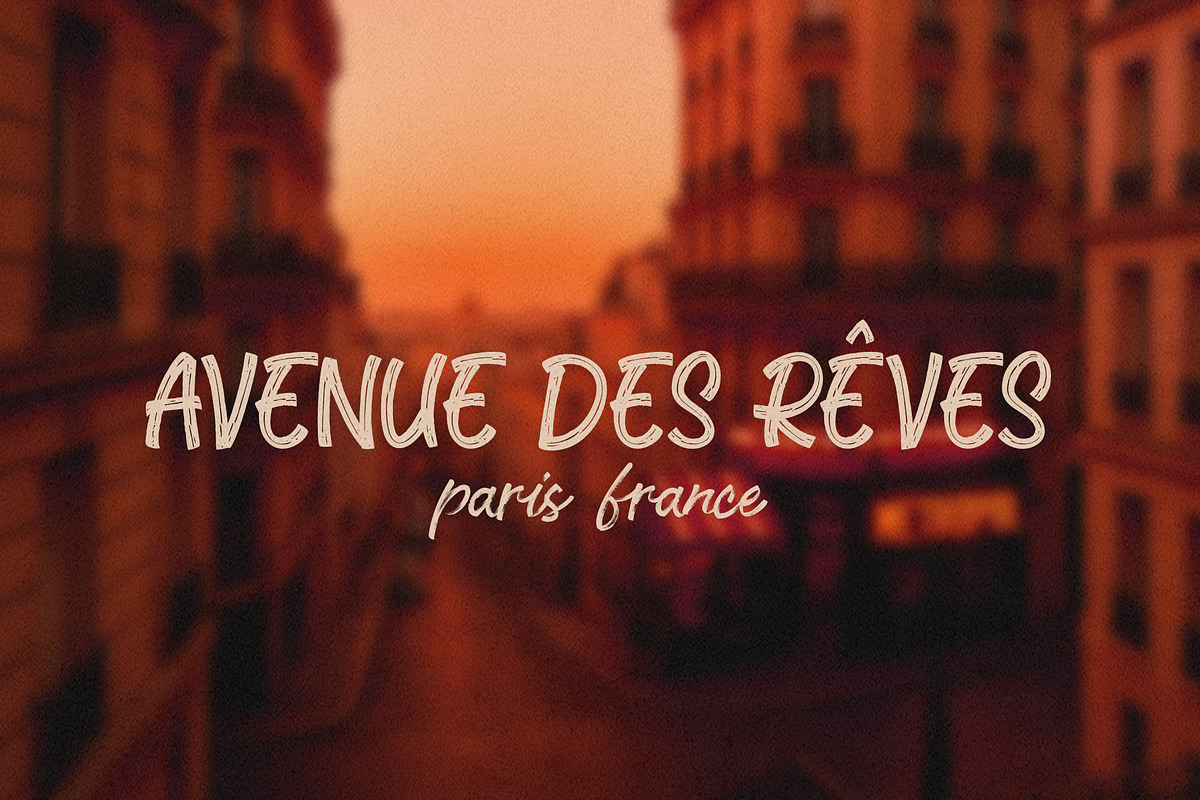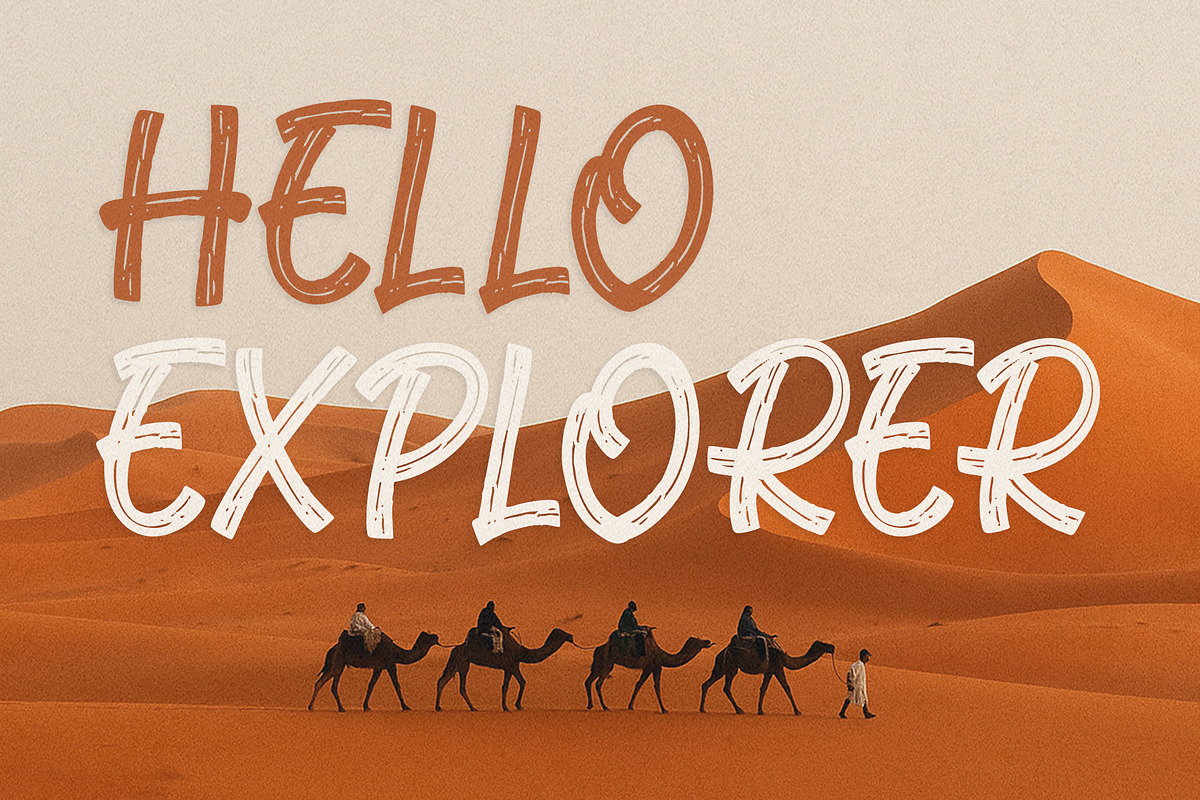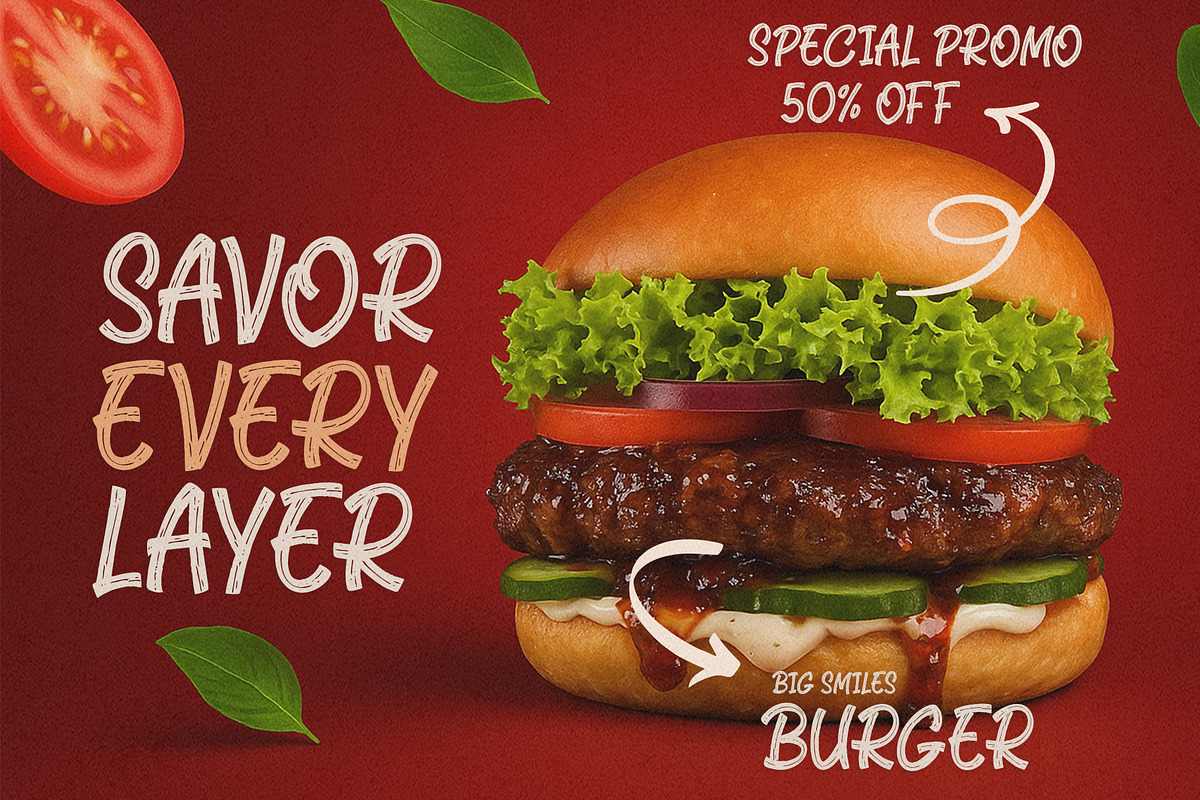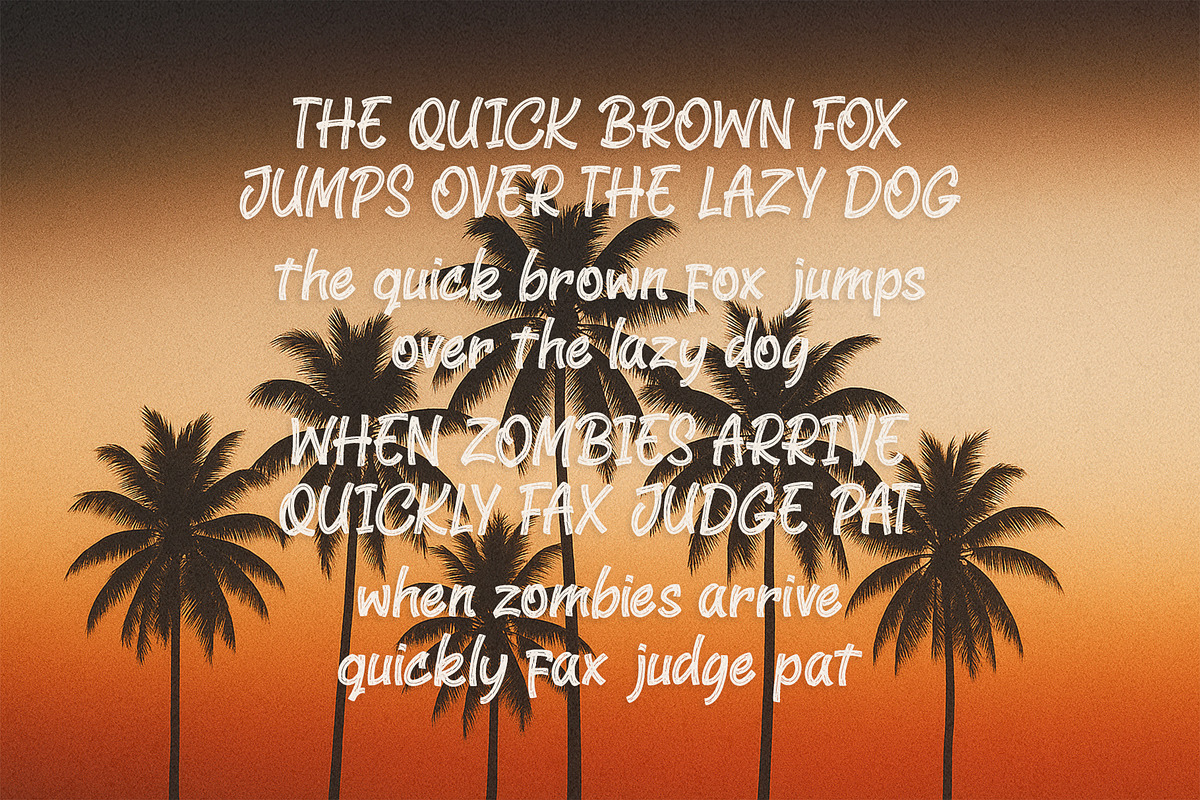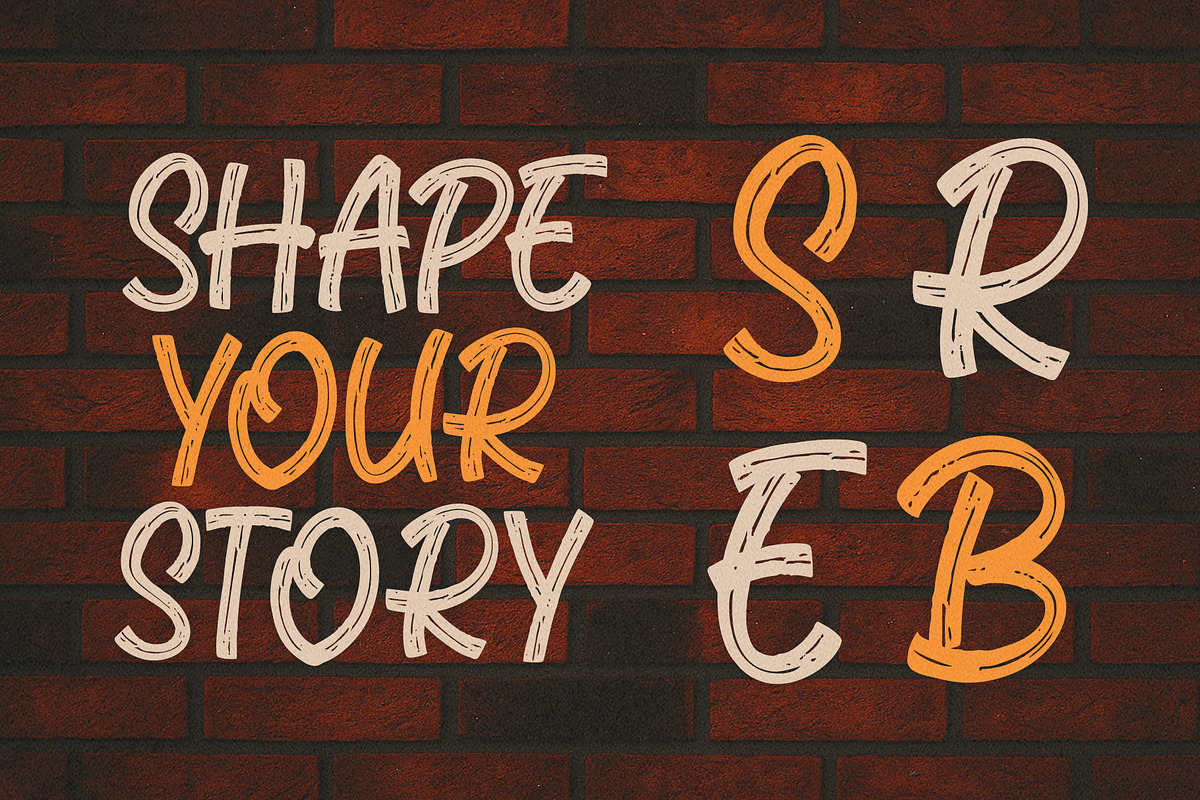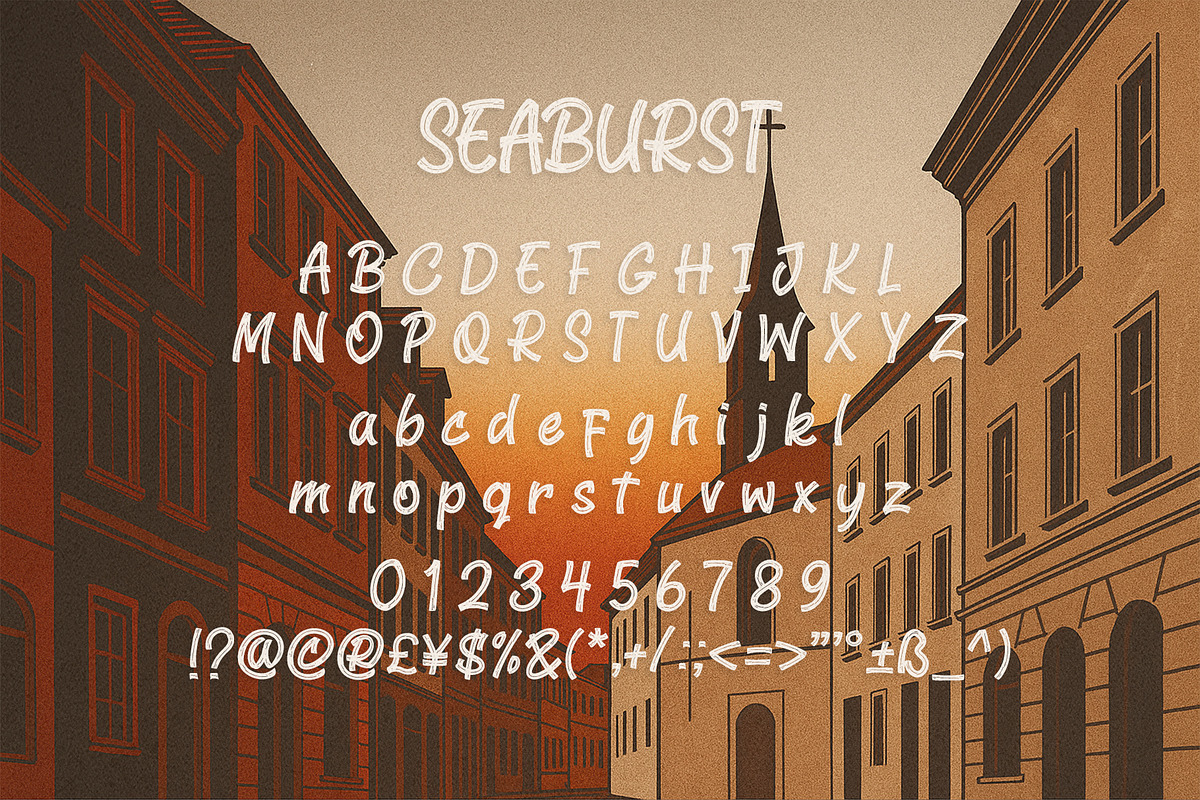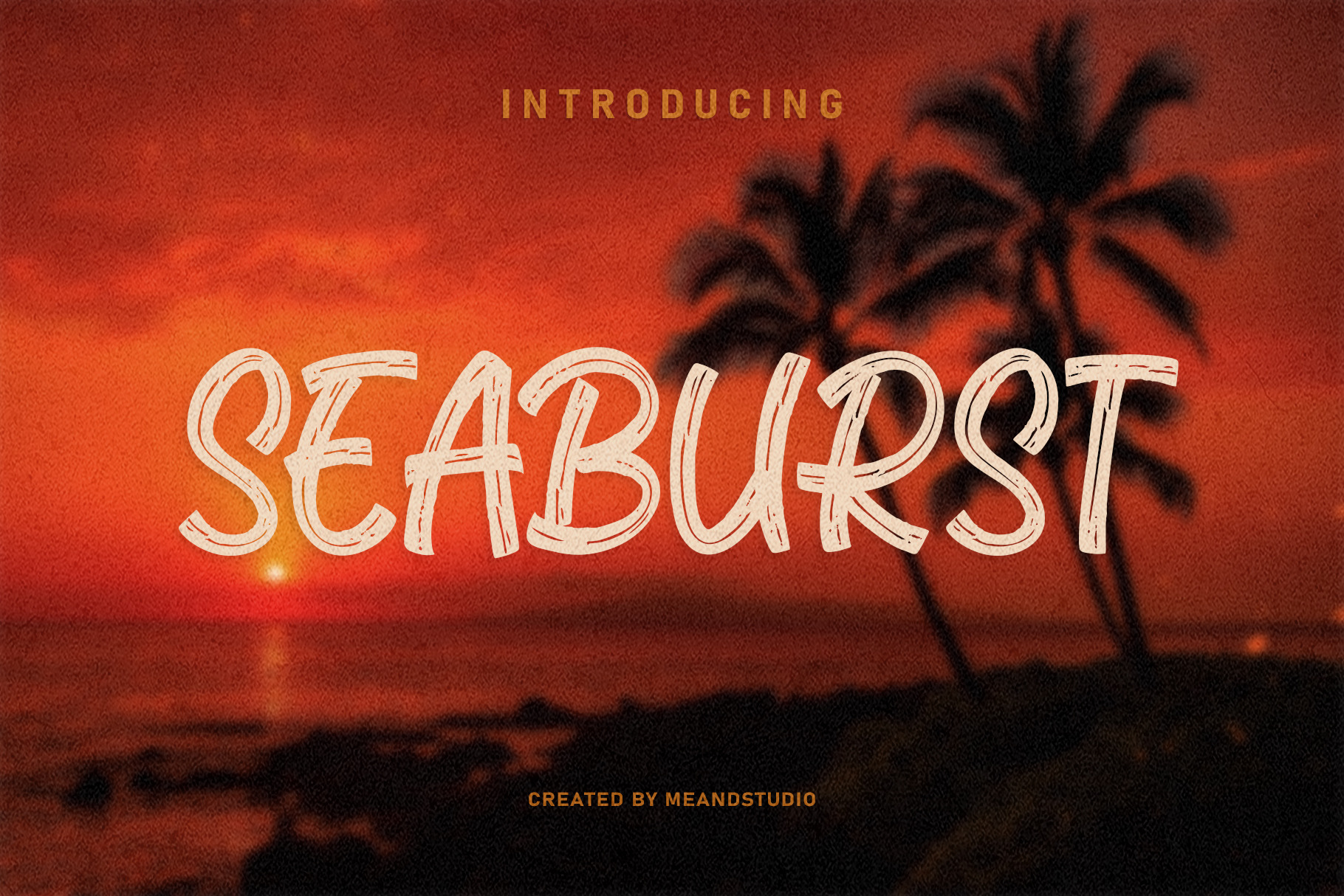
Seaburst – Brush Display Font
Seaburst is a handcrafted brush display font that captures the energy of sunsets, ocean waves, and the spirit of adventure. With its bold strokes and natural texture, Seaburst is designed to bring a dynamic and eye-catching feel to your creative projects.
This font is versatile and works beautifully for travel posters, food & beverage branding, summer event promotions, quotes, social media content, packaging, and more. Whether you want to create a playful headline, a rustic logo, or a vibrant Instagram post, Seaburst will shape your story with personality and style.
Bring the warmth of the sunset and the freshness of the sea into your designs with Seaburst!